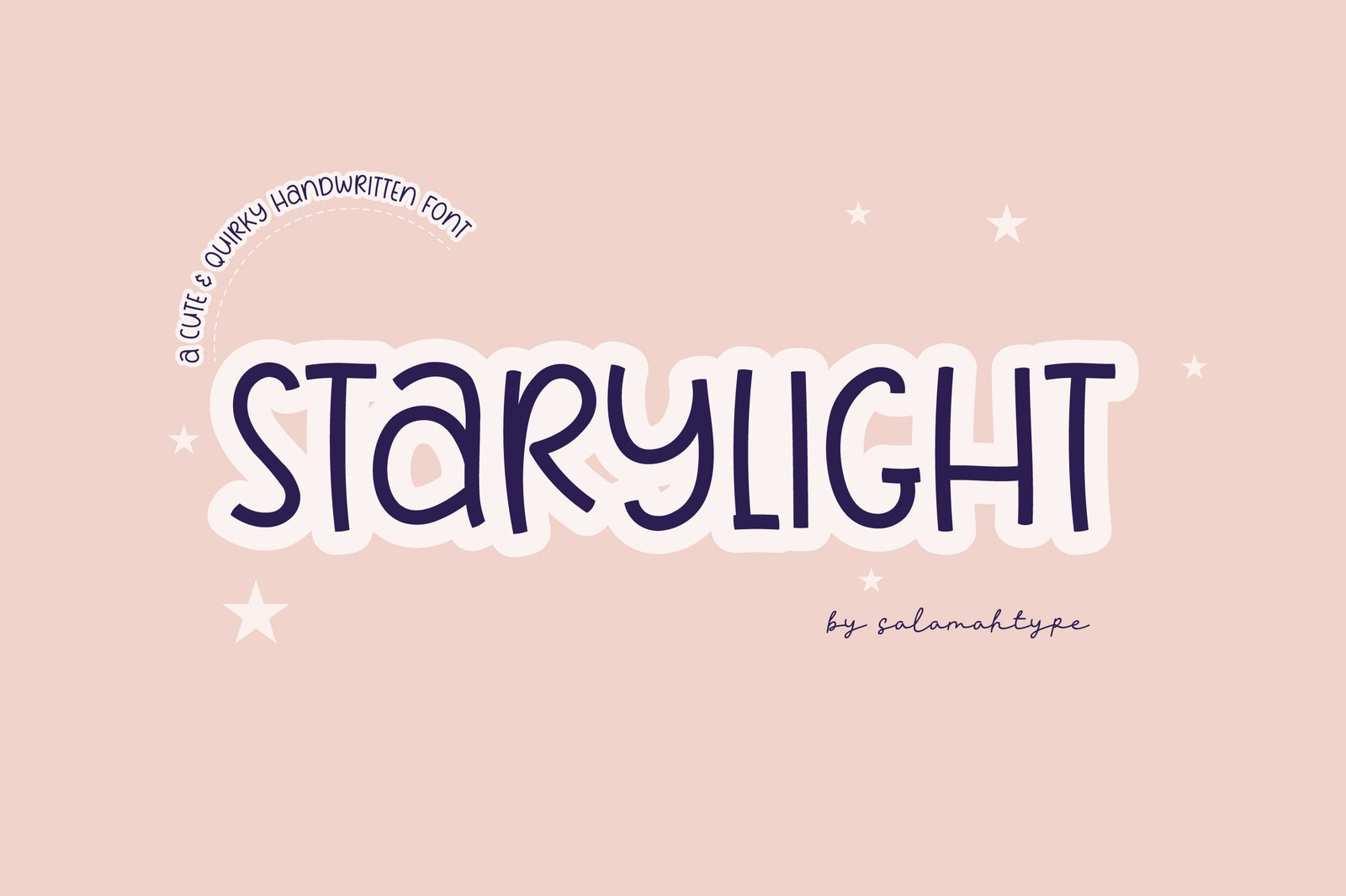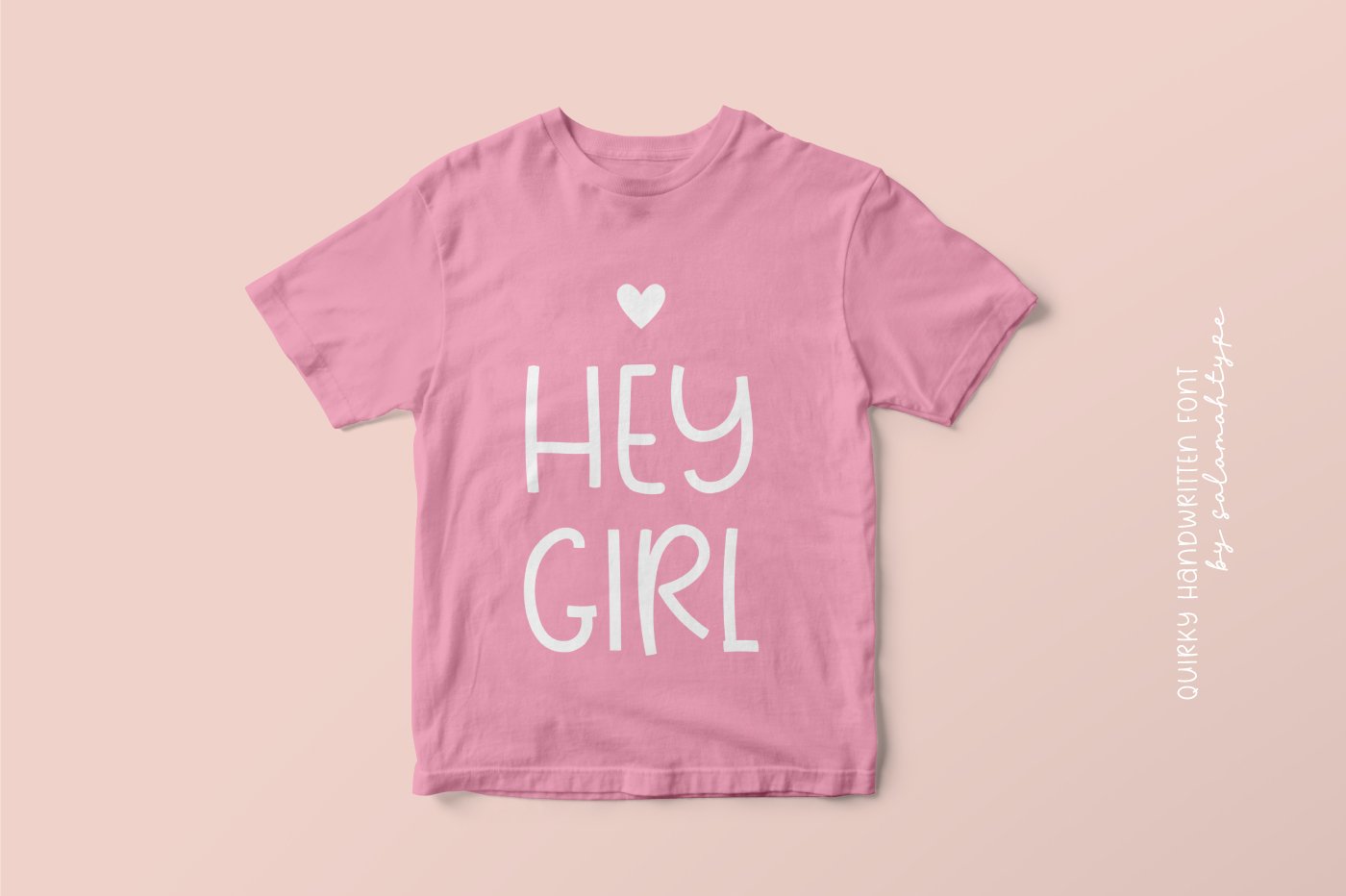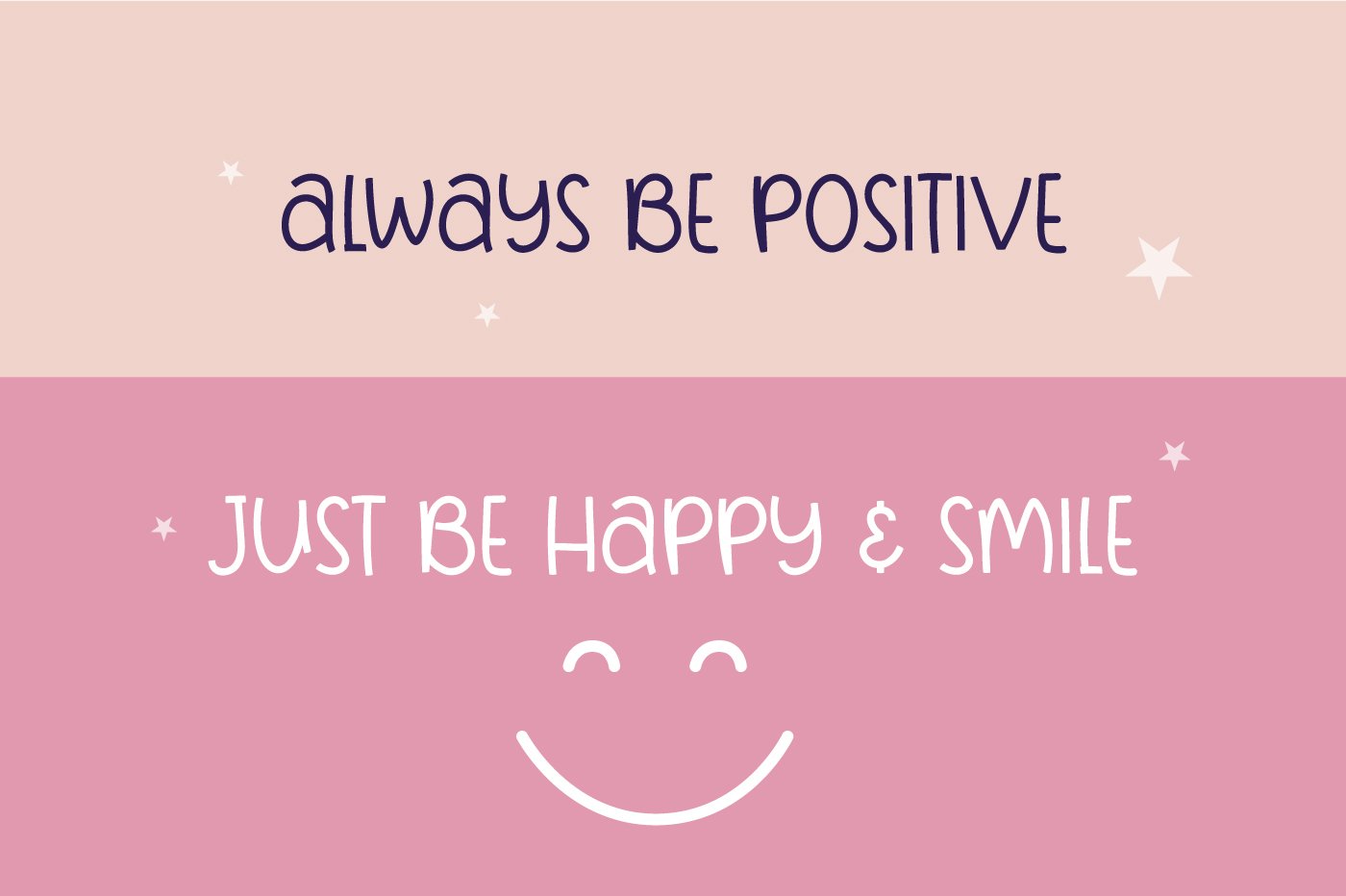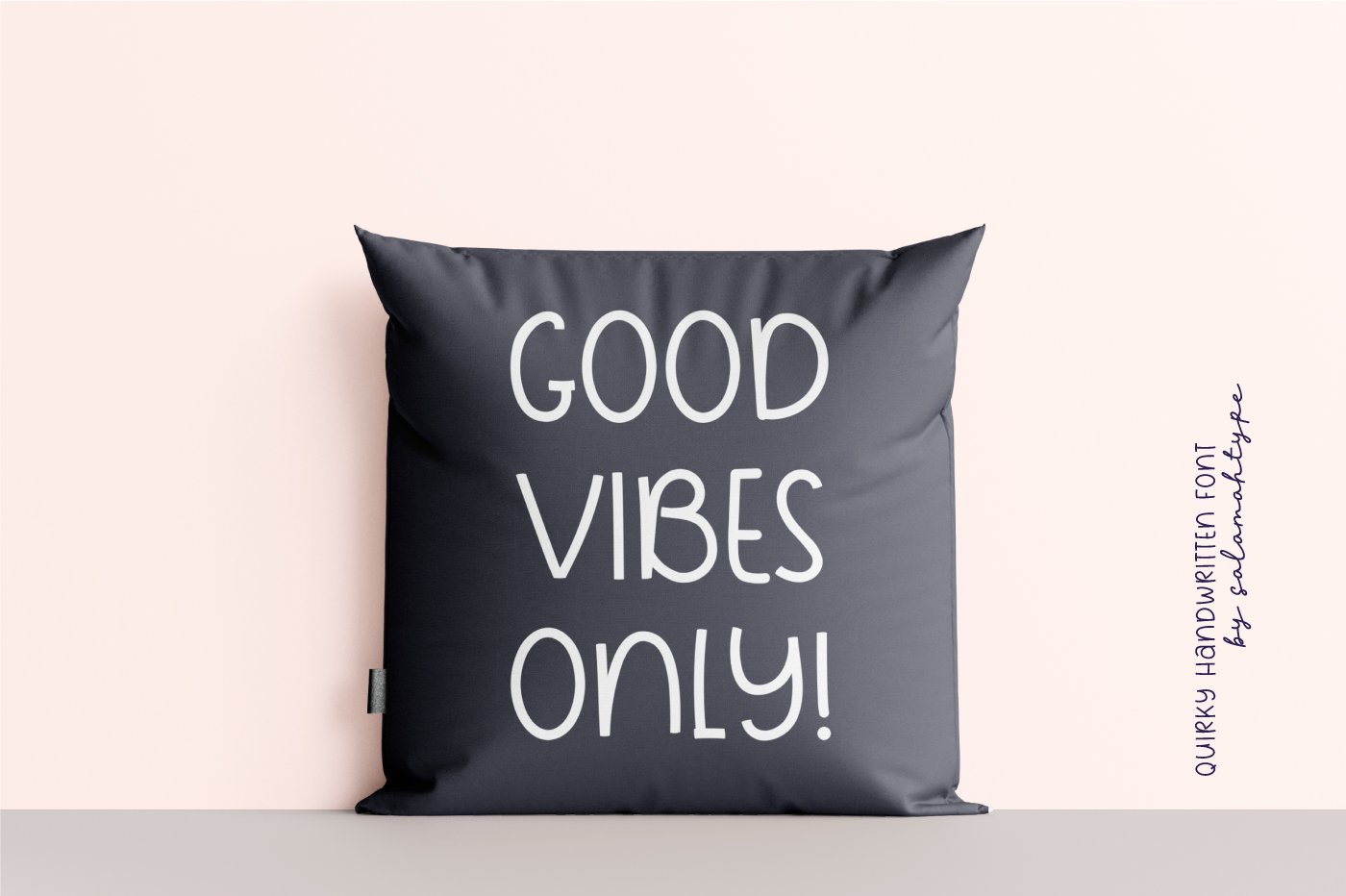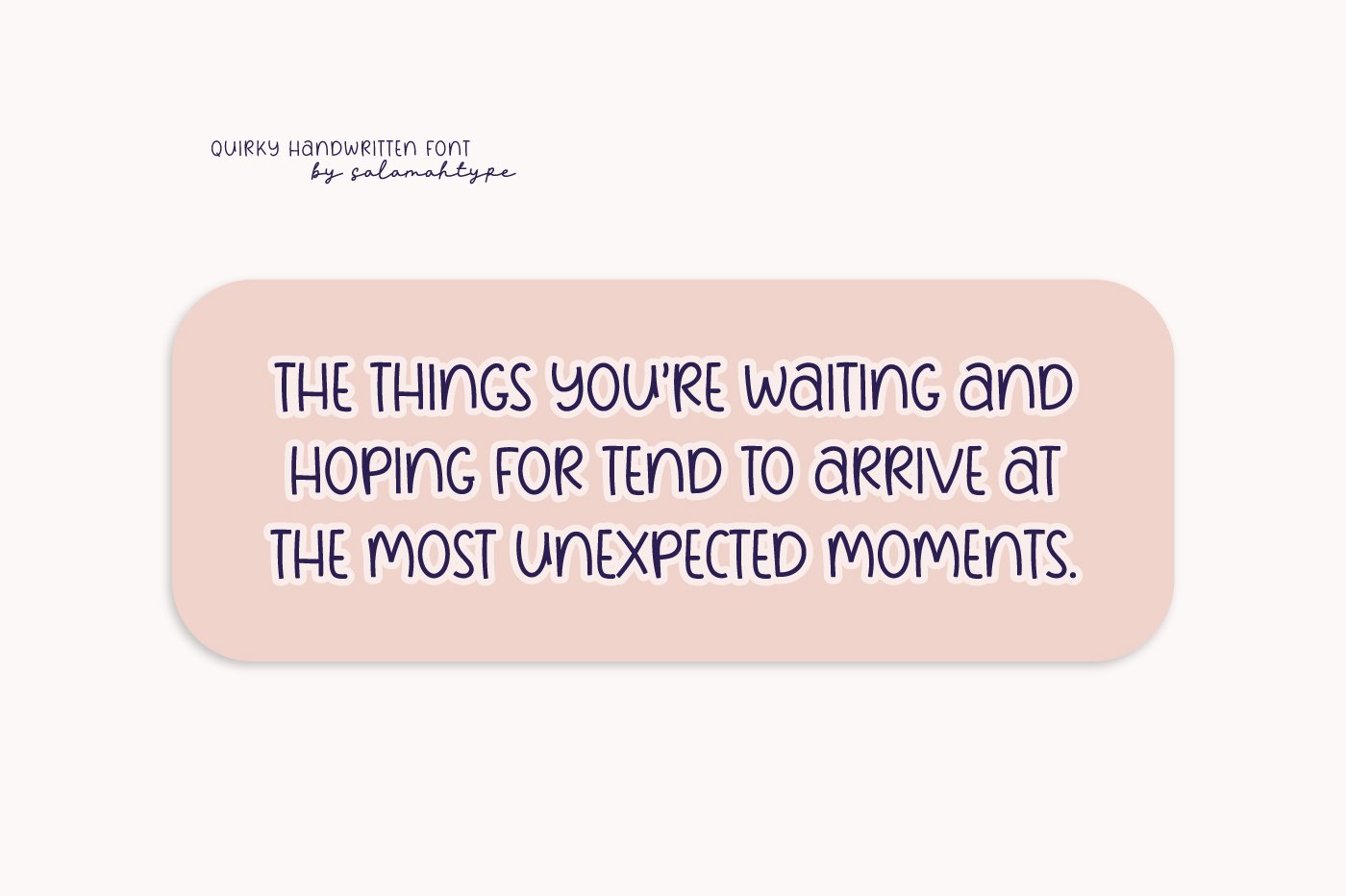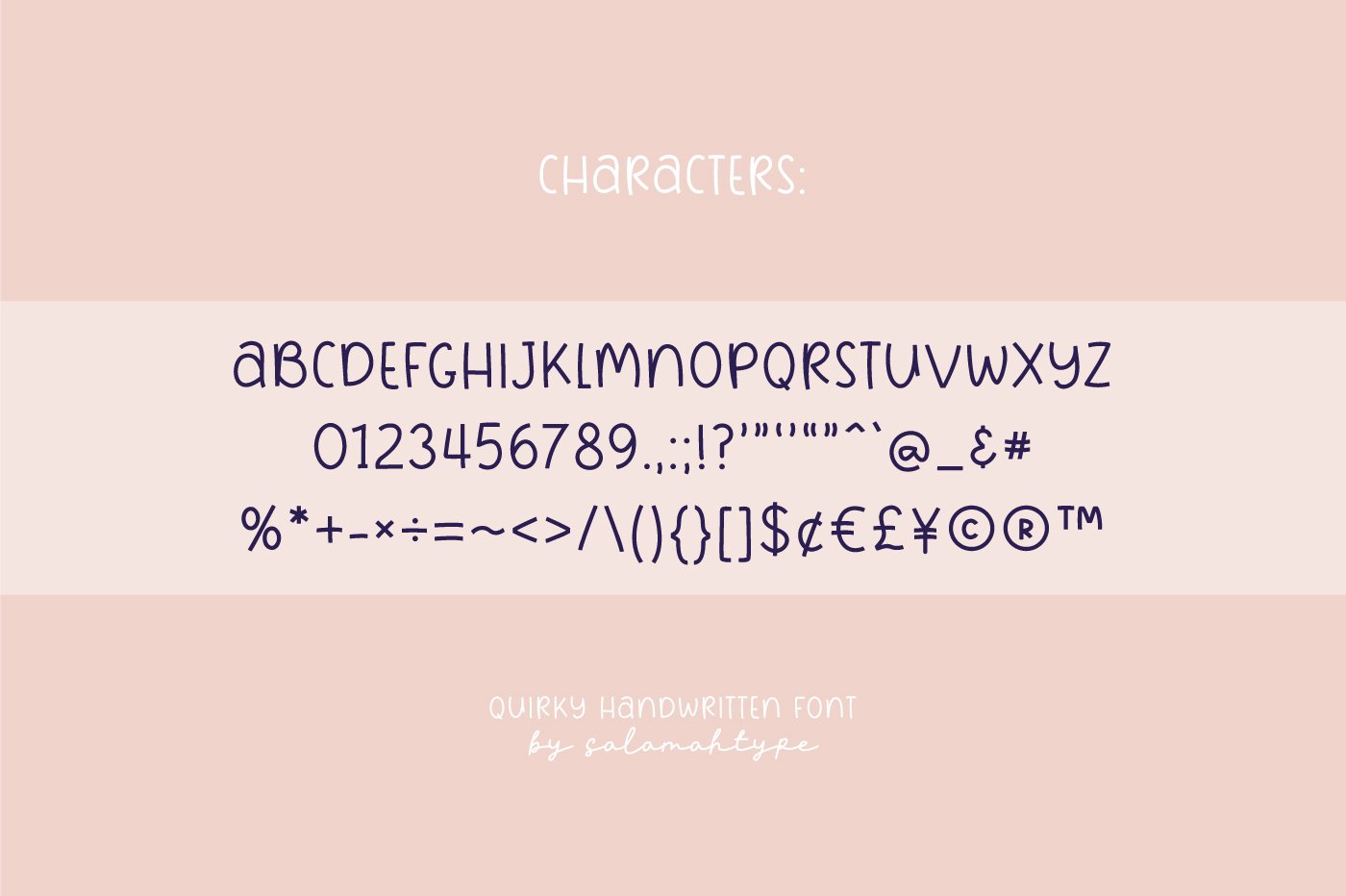
Starylight Simple Fun Font Preview
Starylight Simple Fun Font
Starylight font is a cute and quirky handwritten font.This font is very simple and ready to use without any special characters. Perfect for your projects, branding products, merchandise and more.